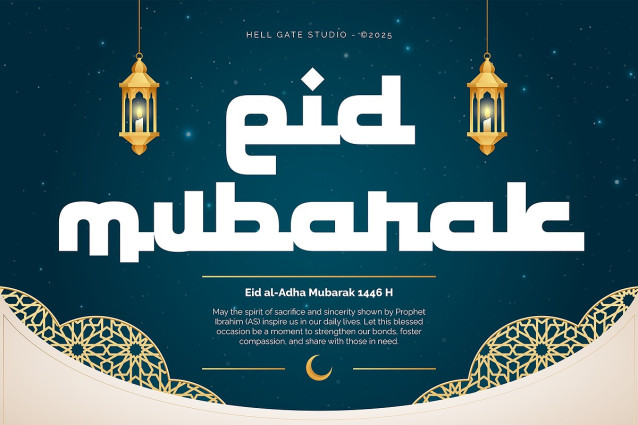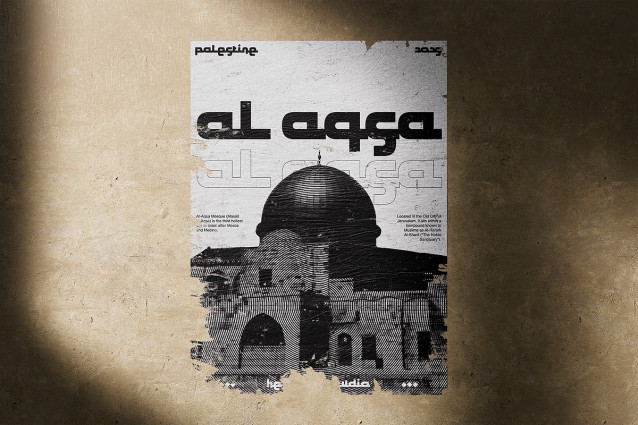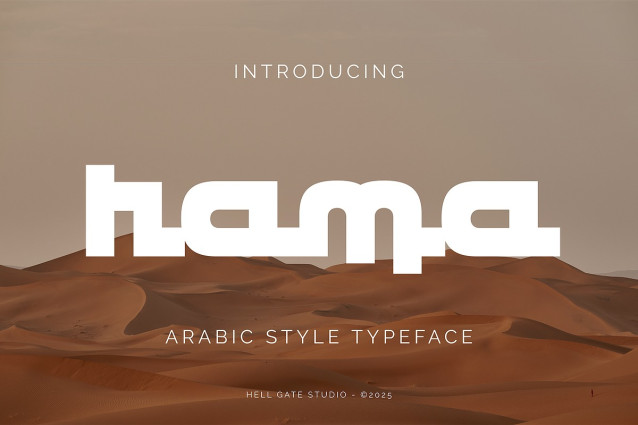
Rama Arabic Font
Rama Arabic Font is a quintessential Modern Sans Serif Display font apart from the herd. Ideally suited for Arabic and Ramadan-themed projects, adjusting its colours and text is incredibly straightforward. Reminiscent of high-quality renderings, Rama-Regular comes supplied in an adaptable OTF format.
Uncover the irresistible charm of this font as it harmonizes with your unique design aesthetics.